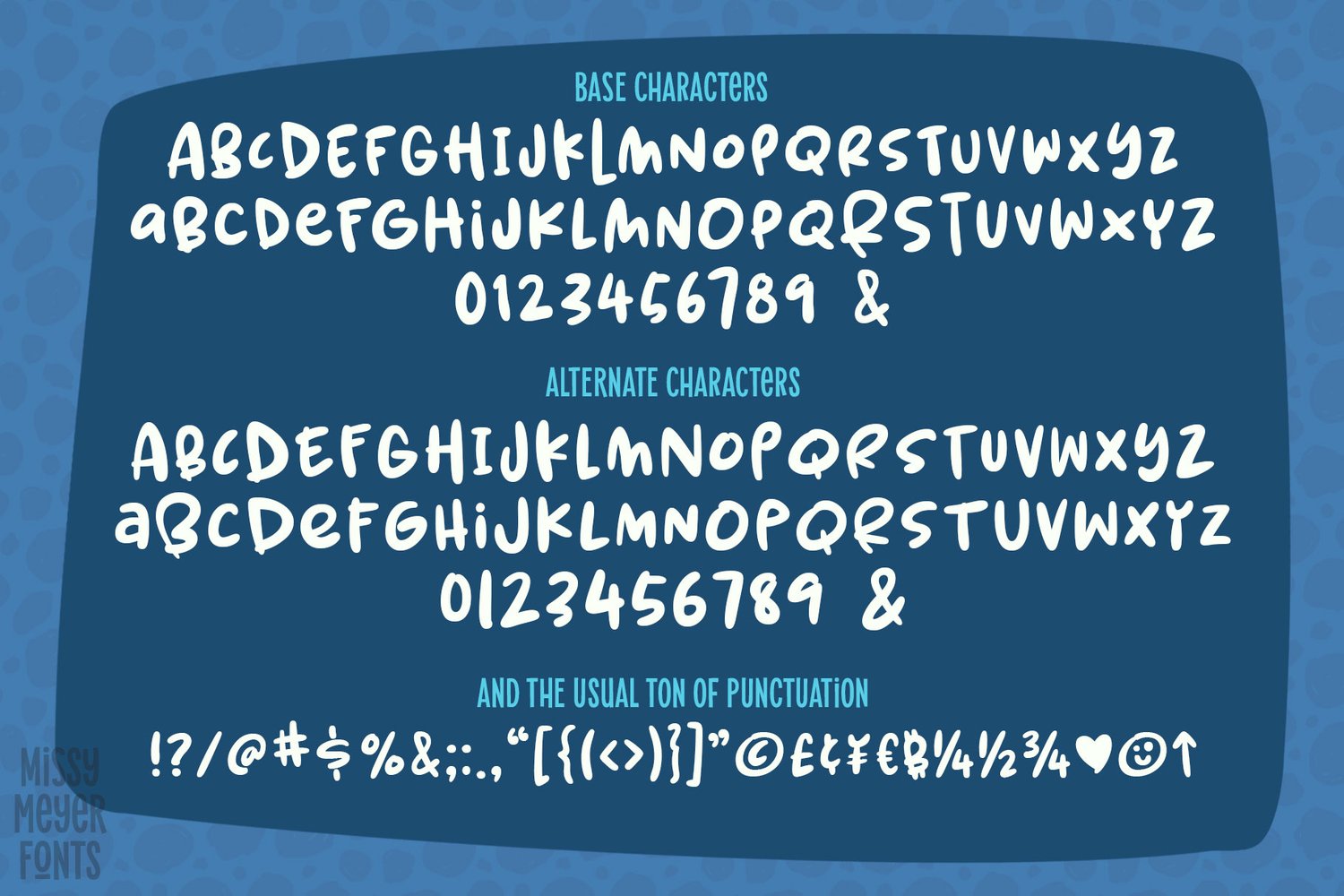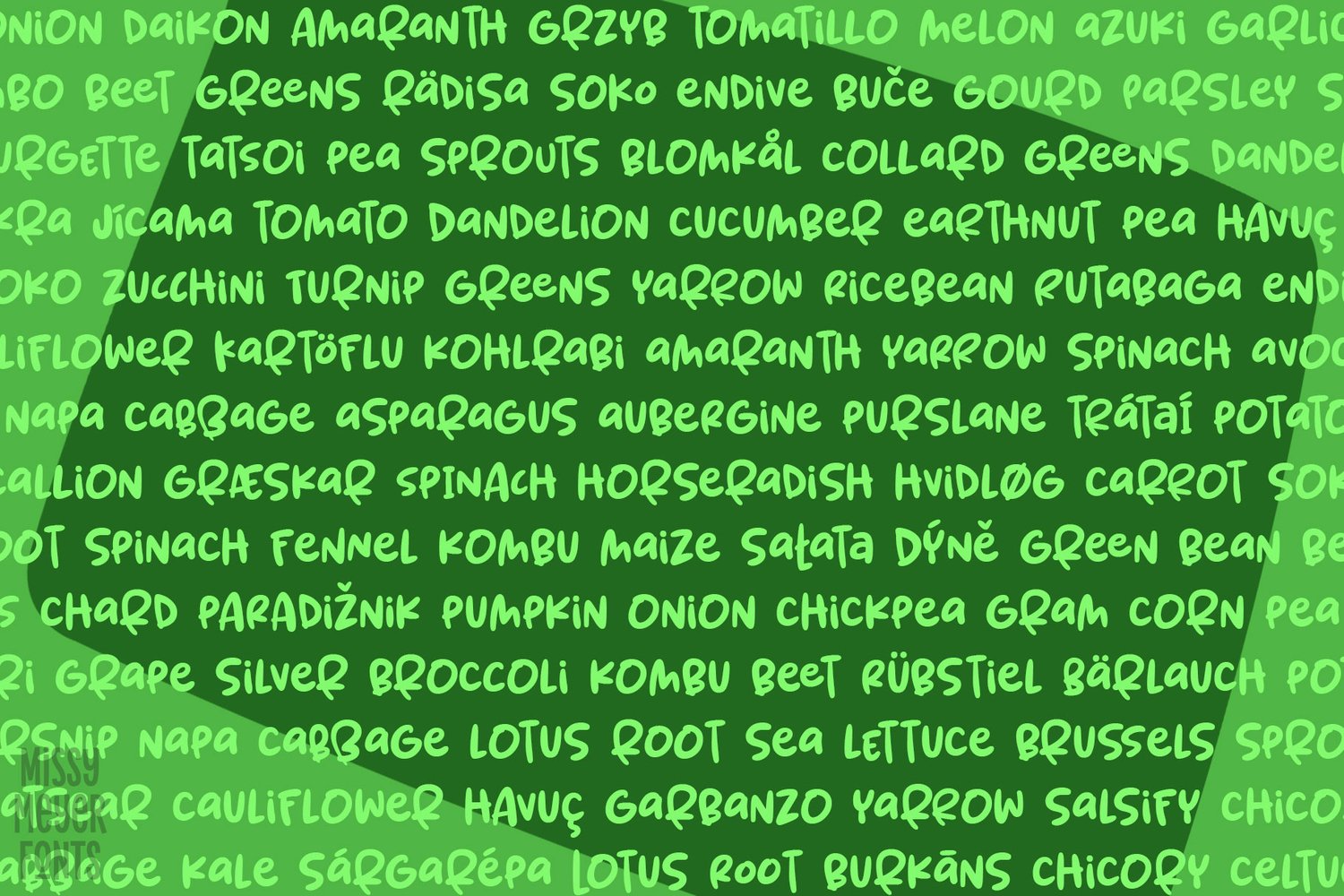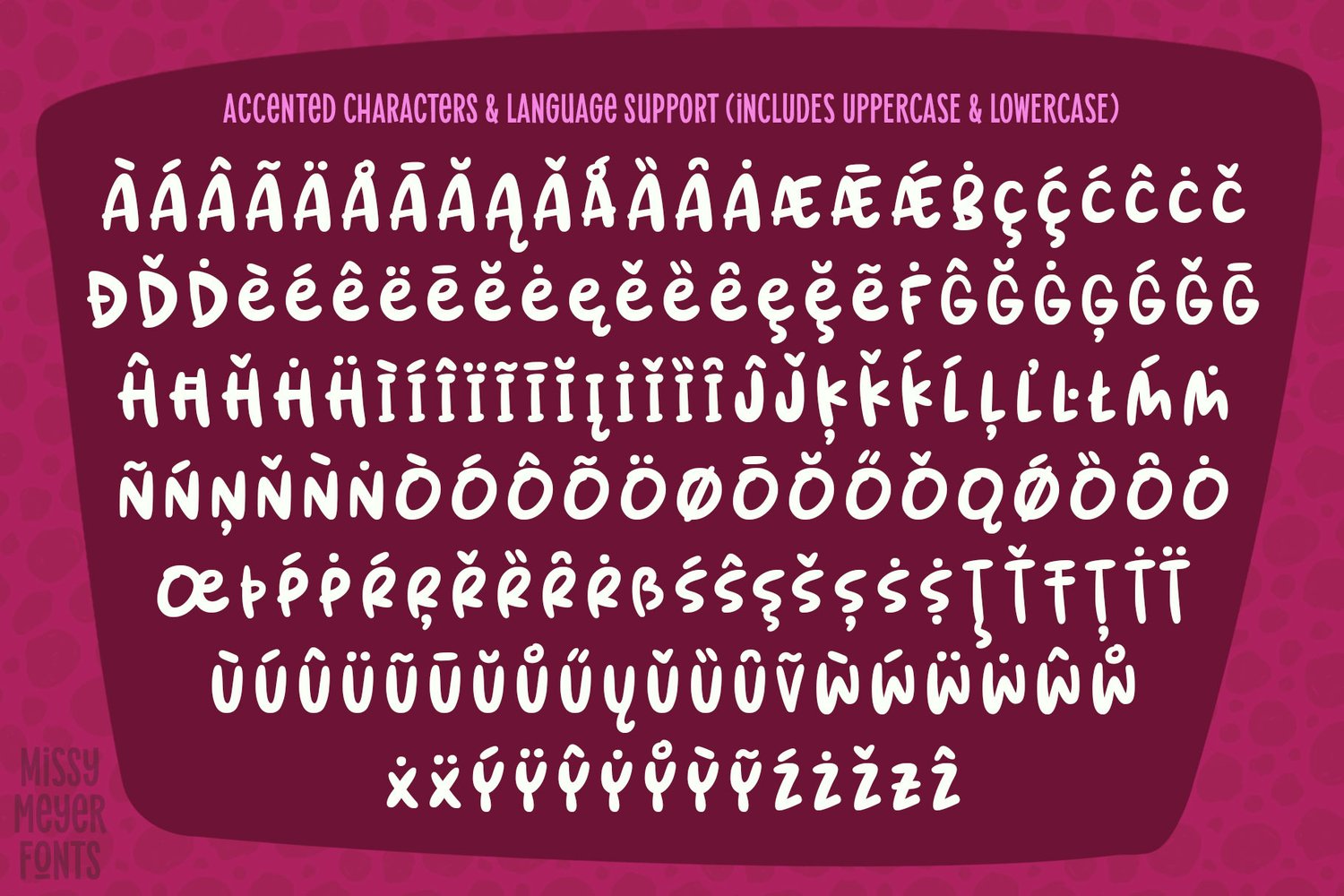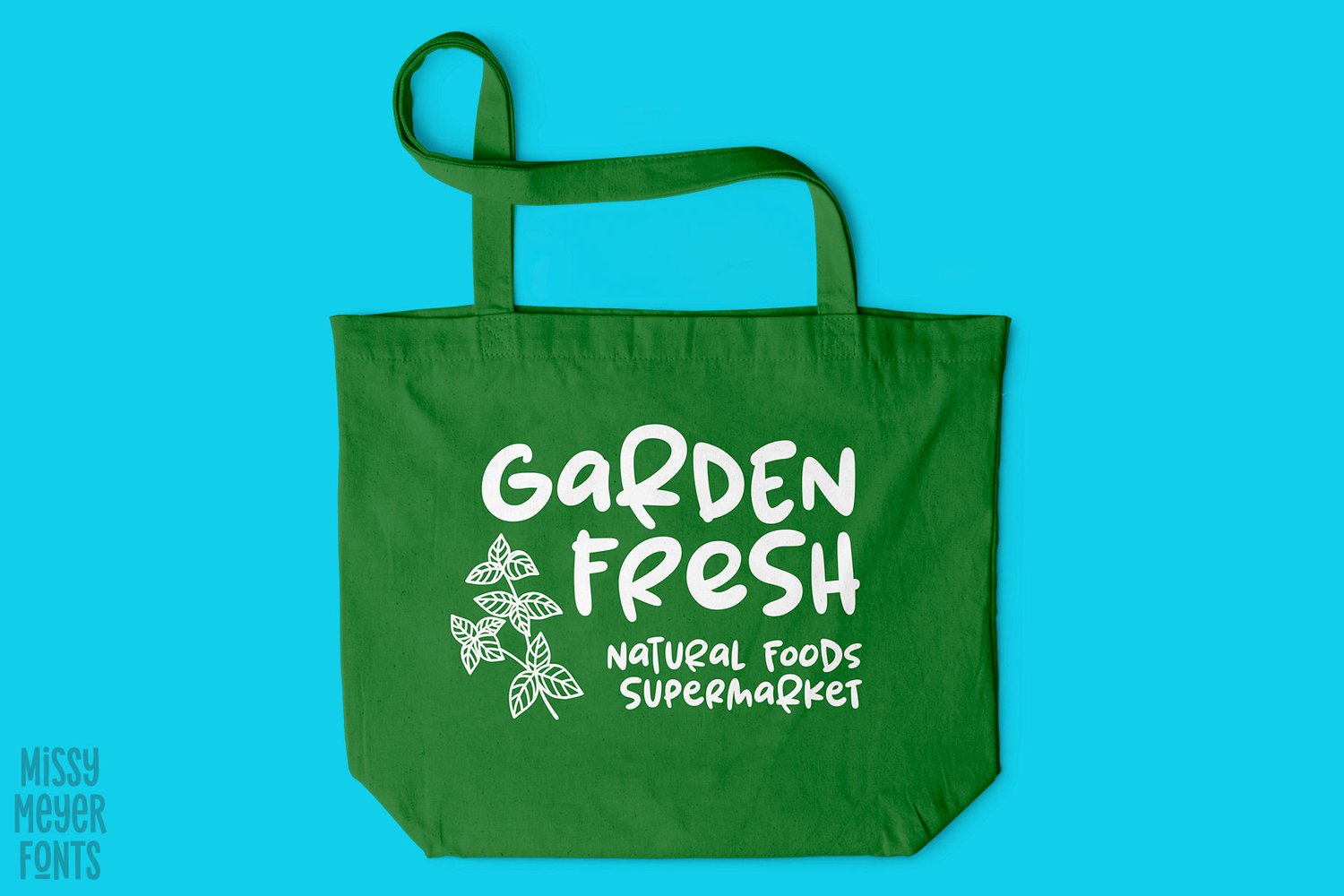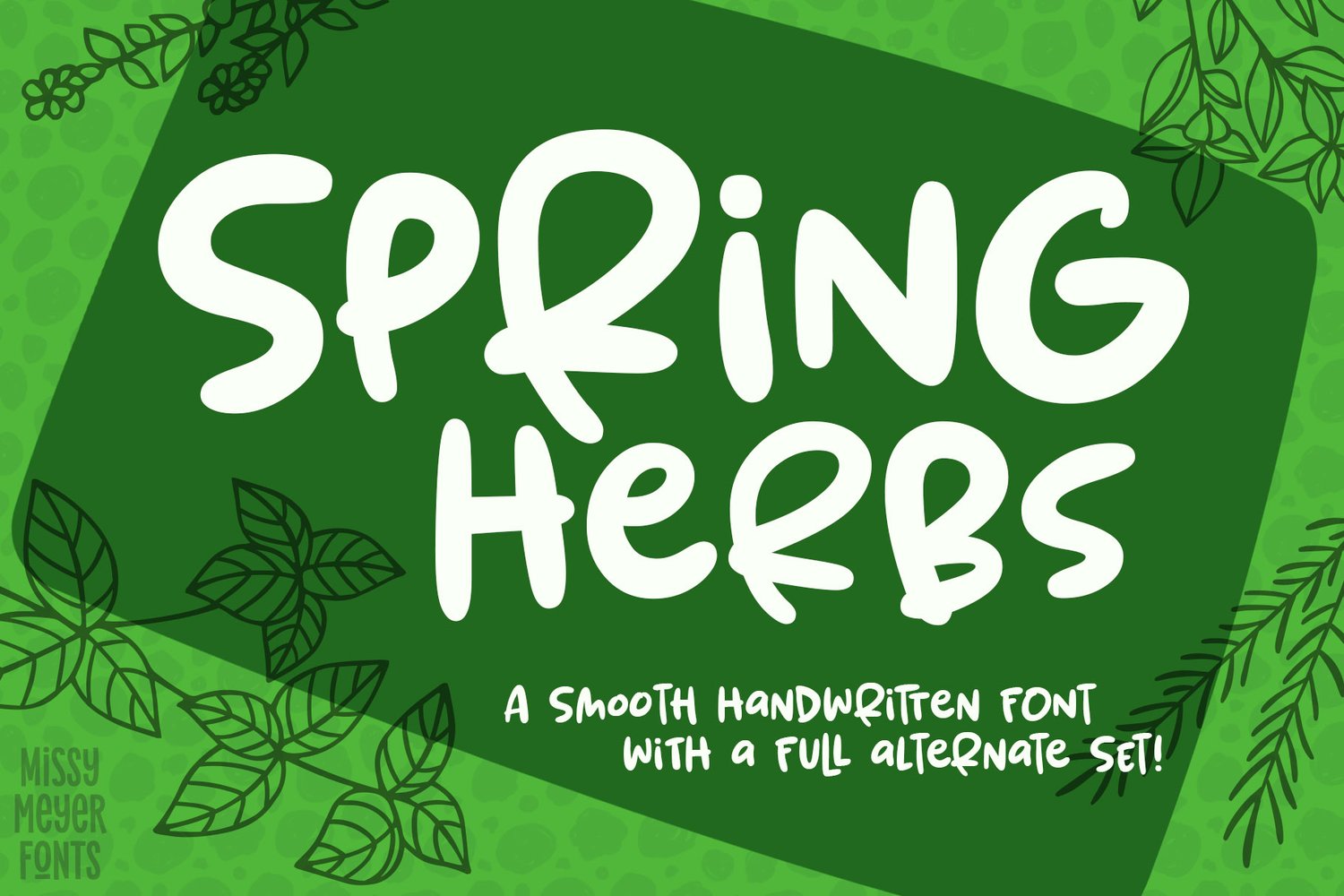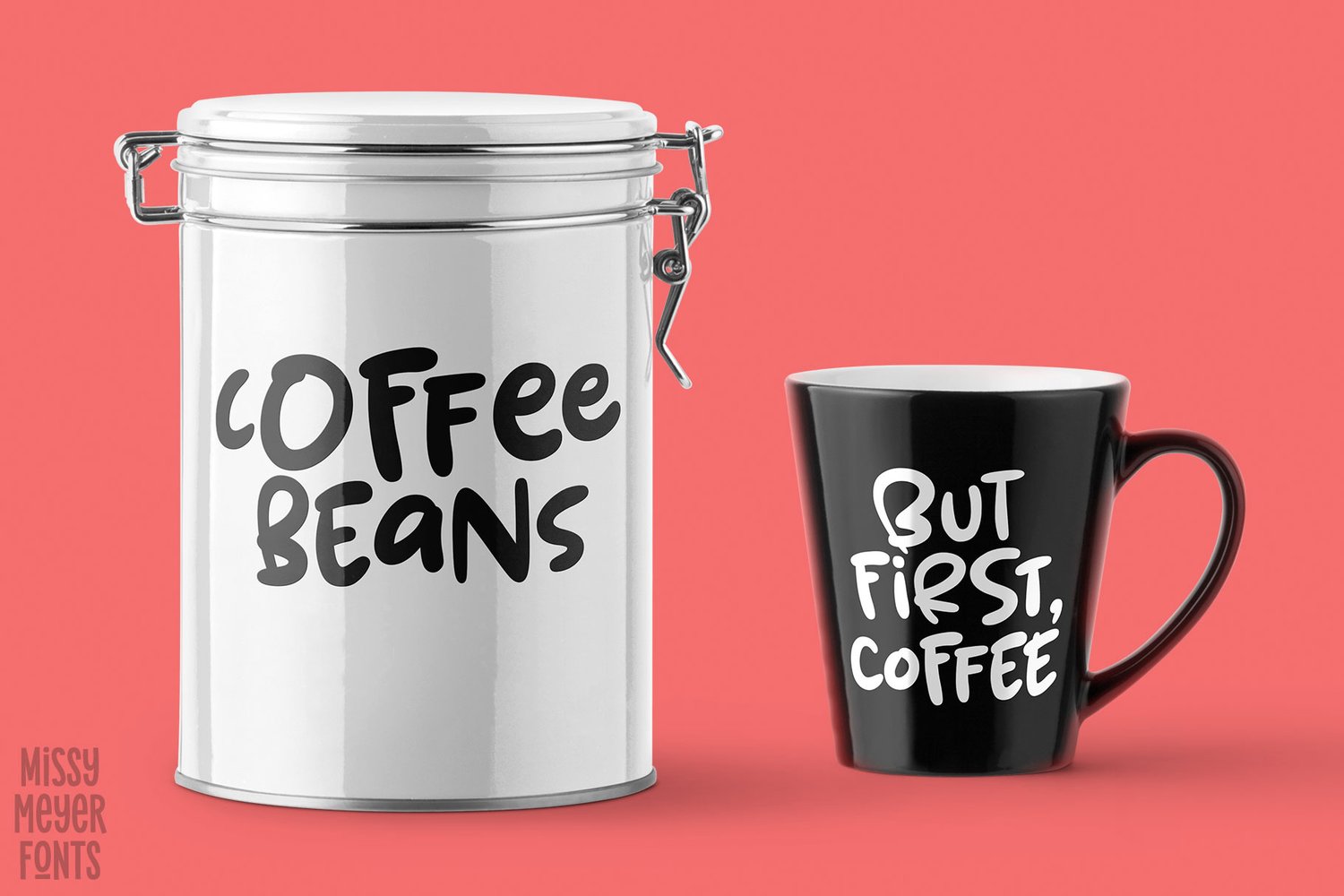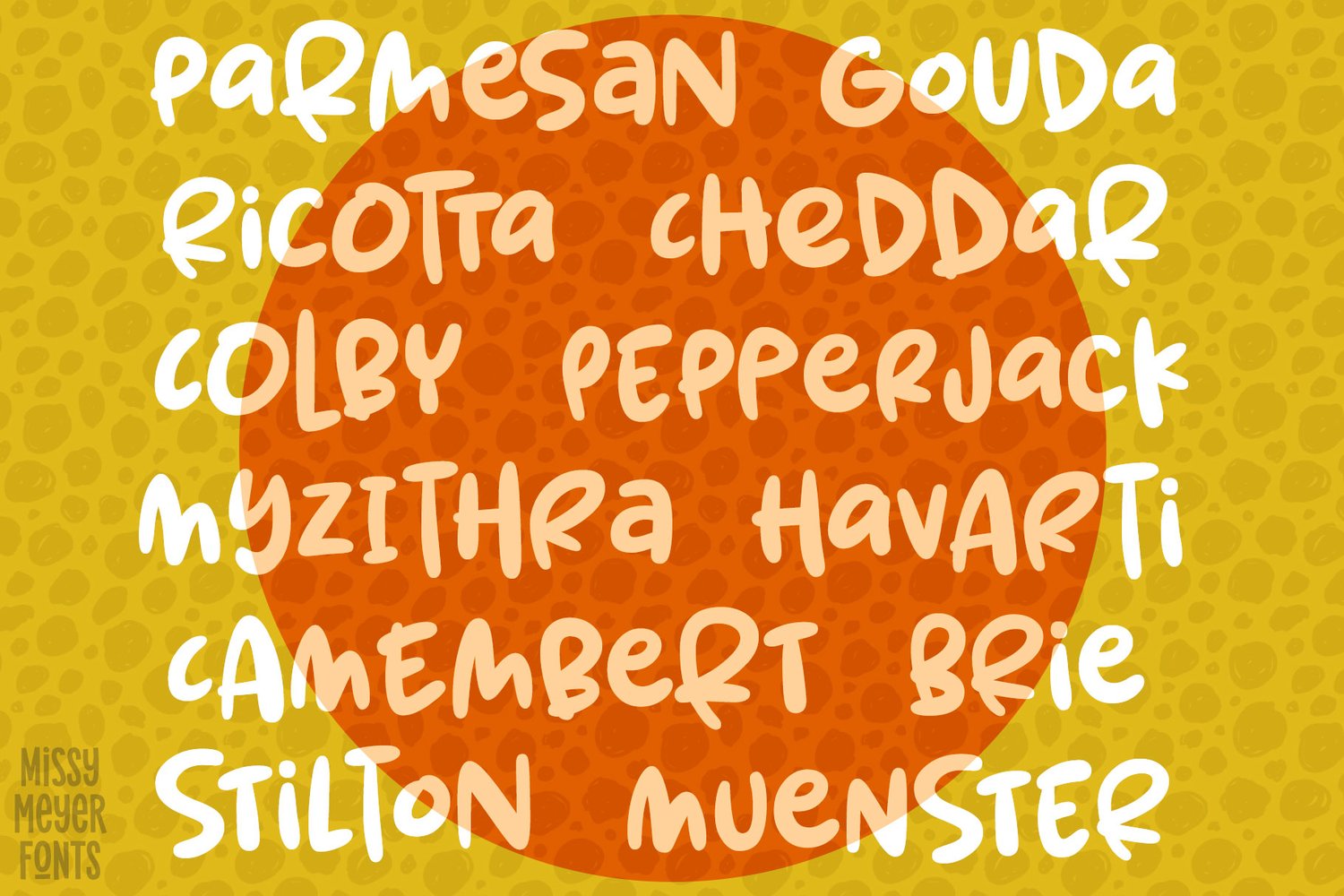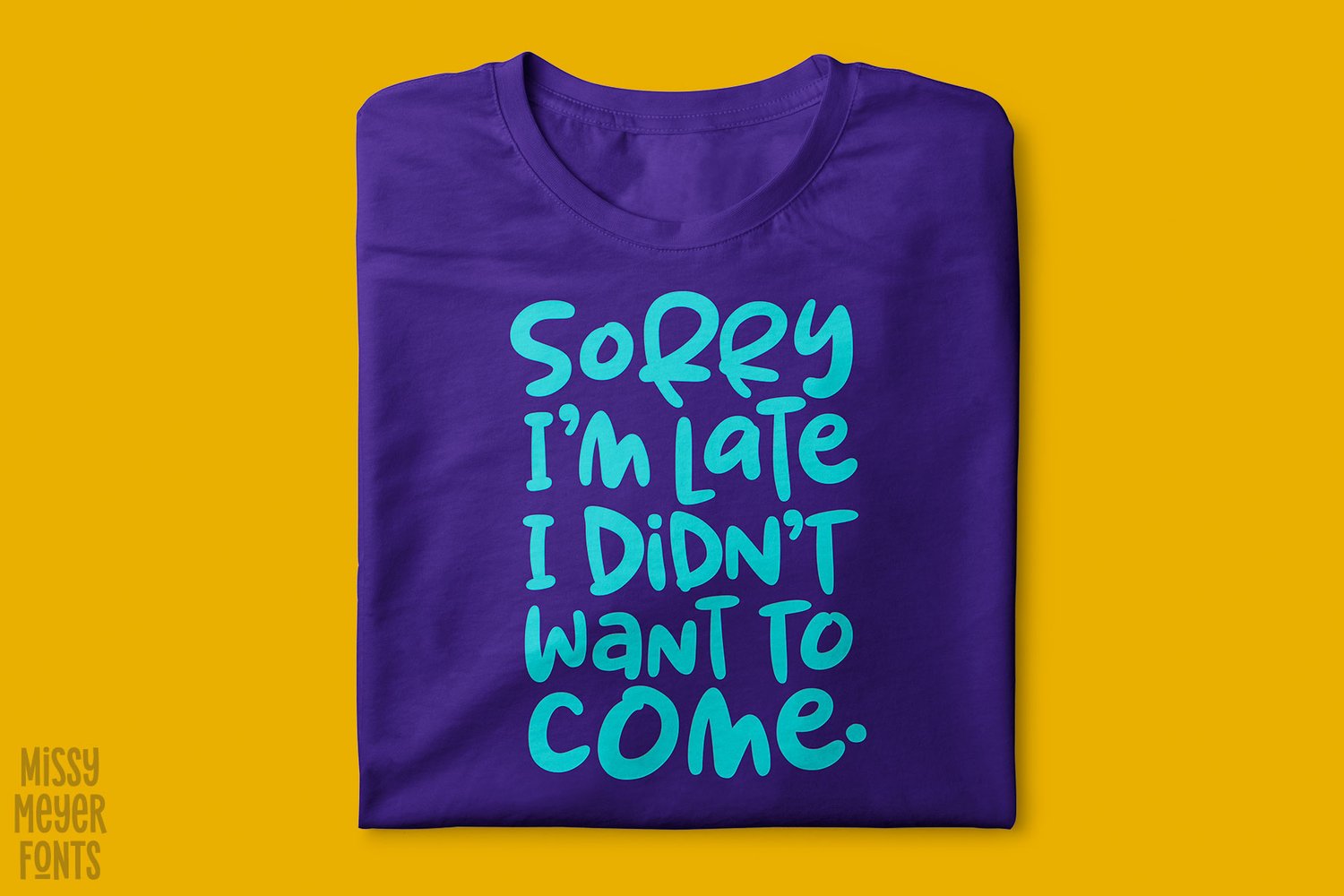
Spring Herbs
It's blobby, bouncy, and super whimsical. It's my Spring Herbs font!
I had a ton of fun with this font. With varying stroke weights, heights, and sizes, plus FOUR options for every letter, you can create a fun design with hand-lettered flair!
Spring Herbs contains over 600 total glyphs, including more than 300 extended Latin characters for language support, over 30 ligatures, and alternates for A-Z, a-z, and 0-9! It's extensively cleaned to be smooth and sharp for both cutting and printing.